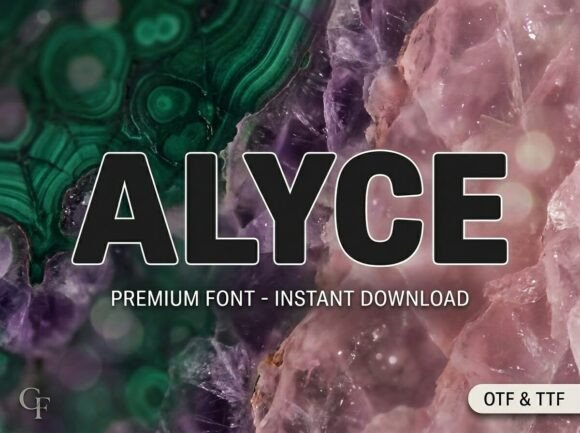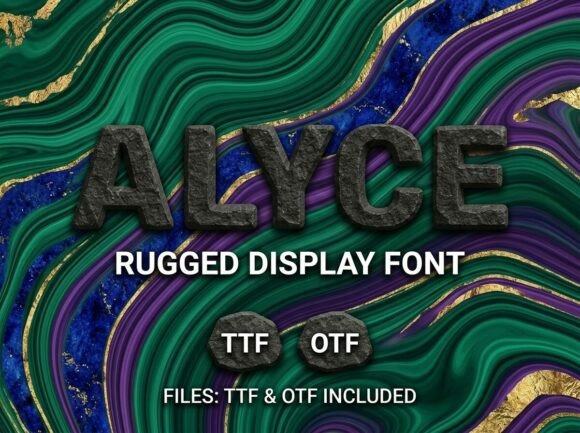
Introducing Alyce Font: A Stunning Decorative Display Font
Are you tired of using the same old fonts for your designs? Do you want to add a touch of uniqueness and creativity to your projects? Look no further than Alyce Font, a breathtaking decorative display font that’s sure to turn heads. In this article, we’ll dive into the features and benefits of Alyce Font, and explore how it can elevate your designs to the next level.
Alyce Font is a stunning decorative display font designed to be the center of attention. With its unique artistic elements and strong visual personality, this font is perfect for creators who want to break away from the ordinary. Whether you’re working on bold headlines, artistic logos, or creative packaging, Alyce Font is the perfect choice. Its versatility and professional finish make it an excellent addition to any design project.
Before you make a purchase, it’s essential to note that Alyce Font is an ALL-CAPS (Uppercase Only) display typeface. This means that it does not include lowercase letters. It’s specifically designed for high-impact headlines, logos, and decorative initials where every letter is a work of art.
Alyce Font is a dream come true for designers and crafters who want to add a touch of elegance and sophistication to their projects. With its unique and artistic elements, this font is perfect for:
- Headlines and titles: Add a touch of drama and flair to your headlines and titles with Alyce Font.
- Logos and branding: Create a lasting impression with a custom logo that showcases your brand’s personality.
- Packaging and labeling: Stand out on store shelves with eye-catching packaging and labeling that features Alyce Font.
- Artistic projects: Add a touch of whimsy and creativity to your artistic projects, such as illustrations, paintings, or collages.
Tips for Using Alyce Font
To get the most out of Alyce Font, here are some tips to keep in mind:
- Use it sparingly: Alyce Font is a bold and attention-grabbing font, so use it sparingly to avoid overwhelming your design.
- Pair it with a neutral font: Pair Alyce Font with a neutral font to create visual interest and balance in your design.
- Experiment with colors and textures: Don’t be afraid to experiment with different colors and textures to add depth and interest to your design.
Alyce Font is a stunning decorative display font that’s perfect for designers and crafters who want to add a touch of uniqueness and creativity to their projects. With its unique artistic elements and strong visual personality, this font is sure to turn heads. Whether you’re working on bold headlines, artistic logos, or creative packaging, Alyce Font is the perfect choice. So why wait? Download Alyce Font today and take your designs to the next level!